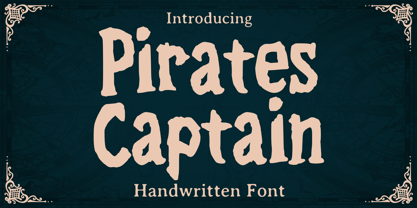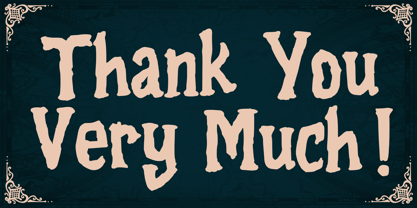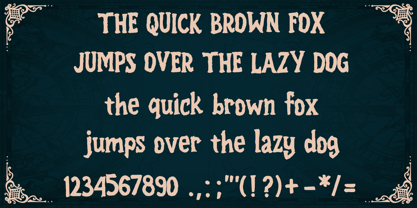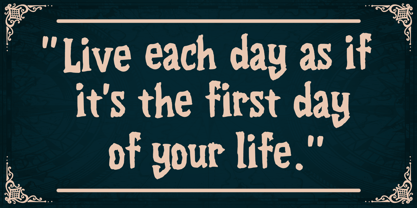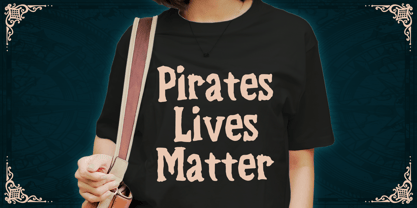
Pirates Captain
by Mvmet
The Pirates Captain Font Family was designed by Gabriel Valentinus and published by Mvmet. Pirates Captain contains 1 styles. More about this family
Pirates Captain is a amazing pirate-themed display font, inspired by adventurous horror pirate movies. It will elevate a wide range of design projects to the highest level. You can use this font for many design ideas such as stickers, t-shirt designs, amazing logo designs, magazine or book covers, comics, cartoon drawings, daily typing, and many more. This font will add a super cool touch to your designs!
Designers: Gabriel Valentinus
Foundry: Mvmet
Mvmet is an Indonesia-based font studio which began making fonts in early 2020. Mvmet strives to make fonts fun and accessible for both the average computer user and professional designers, with original experimental fonts and affordable trend-setting commercial fonts. Mvmet also creates custom fonts for companies who want exclusive rights and a specific design for a typeface. Clients who have used Mvmet’s custom font services include some company in Indonesia and abroad.